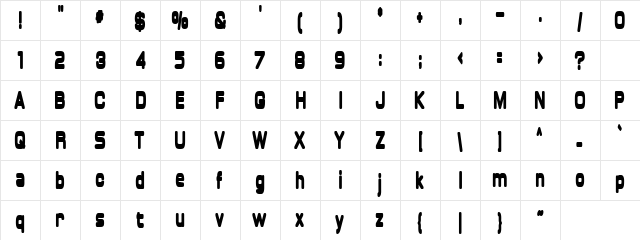
Overload Regular
Design Context for Overload Typeface
Overload offers clean, dependable letterforms without strong stylistic allegiance, making it a practical choice for designers who need flexibility.
Pro Tip: Pair Overload with a font of contrasting weight or personality to build a more expressive typographic hierarchy.